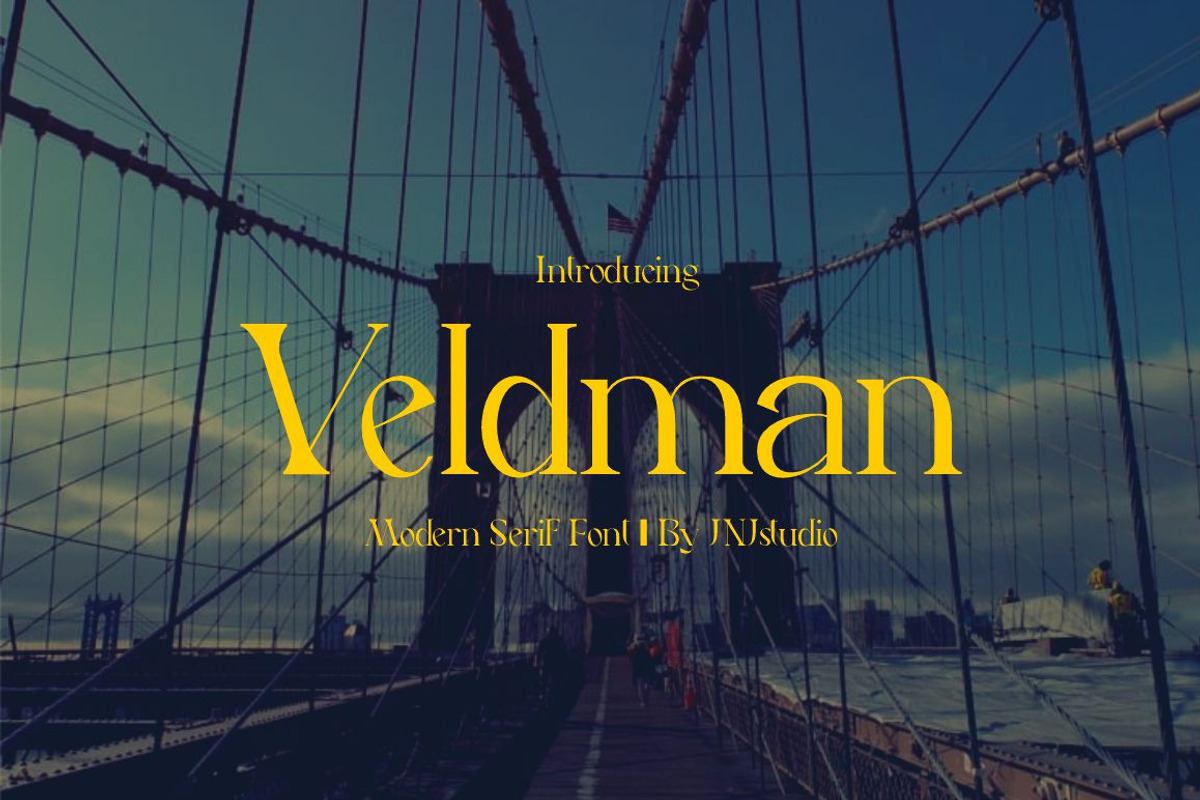
Timeless and bold, Veldman Serif Font Free Download brings a touch of vintage sophistication to modern design. With its strong serifs, balanced proportions, and slightly retro charm, this typeface is perfect for editorial headlines, branding, packaging, book covers, and classy promotional materials.
Veldman combines tradition with style, offering sharp yet elegant letterforms that command attention without overwhelming the design. It includes uppercase and lowercase letters, numerals, punctuation, and multilingual support—making it a versatile choice for testing refined layout concepts.
Whether you're creating a luxury brand or a nostalgic poster, this font delivers character and clarity. For any commercial use, make sure to purchase the appropriate license. Download Veldman Serif Font Free Download today and give your typography a classic, confident voice.